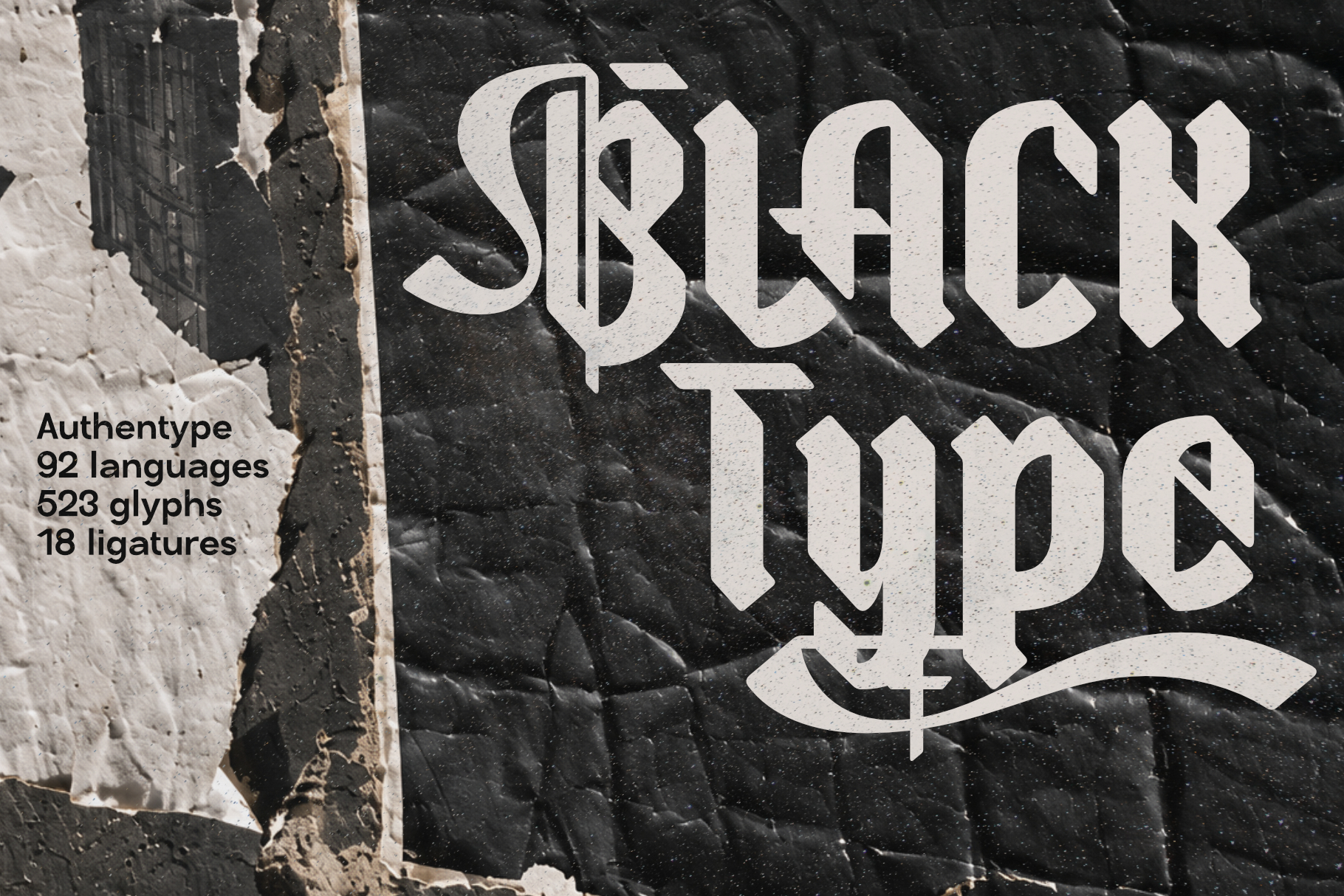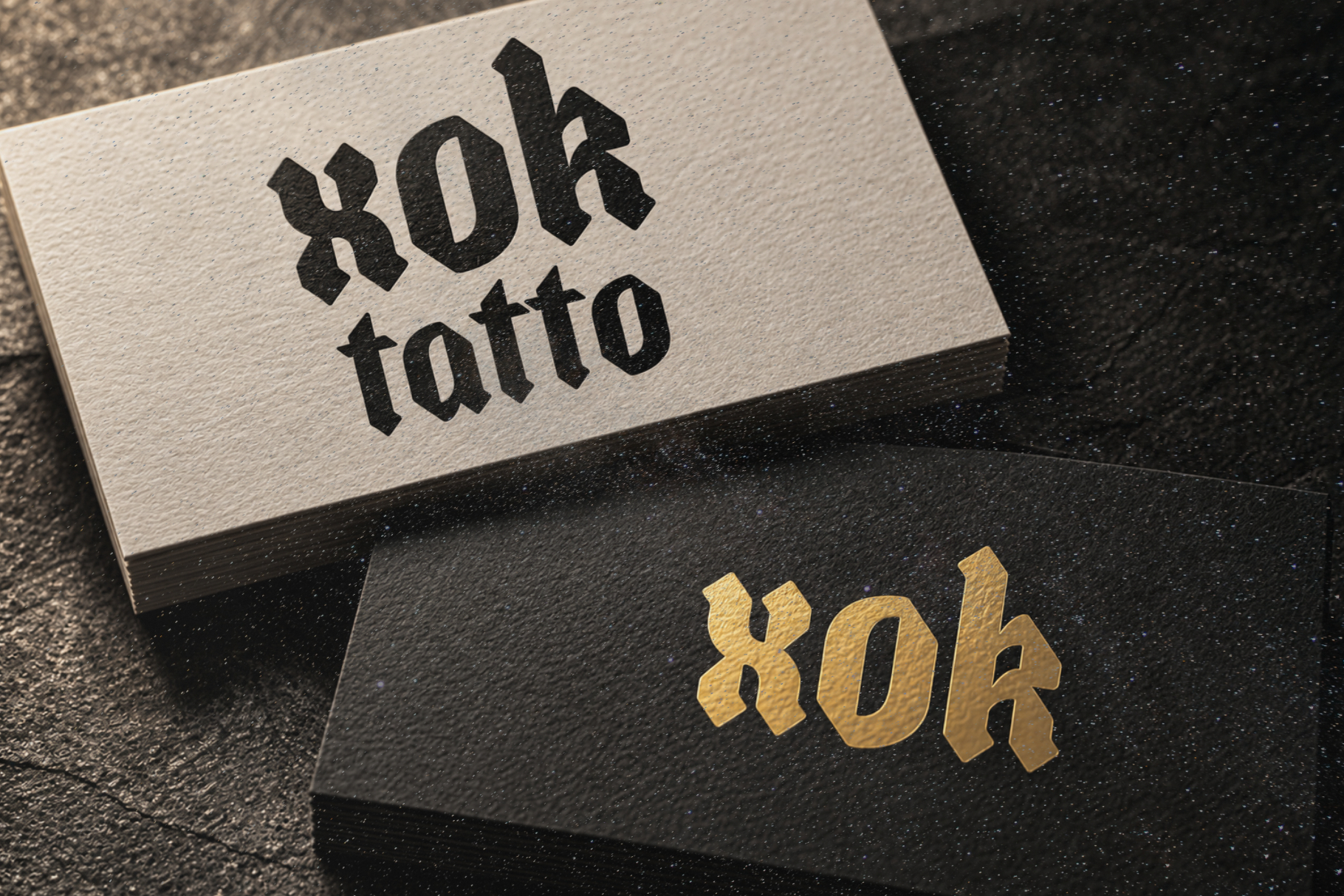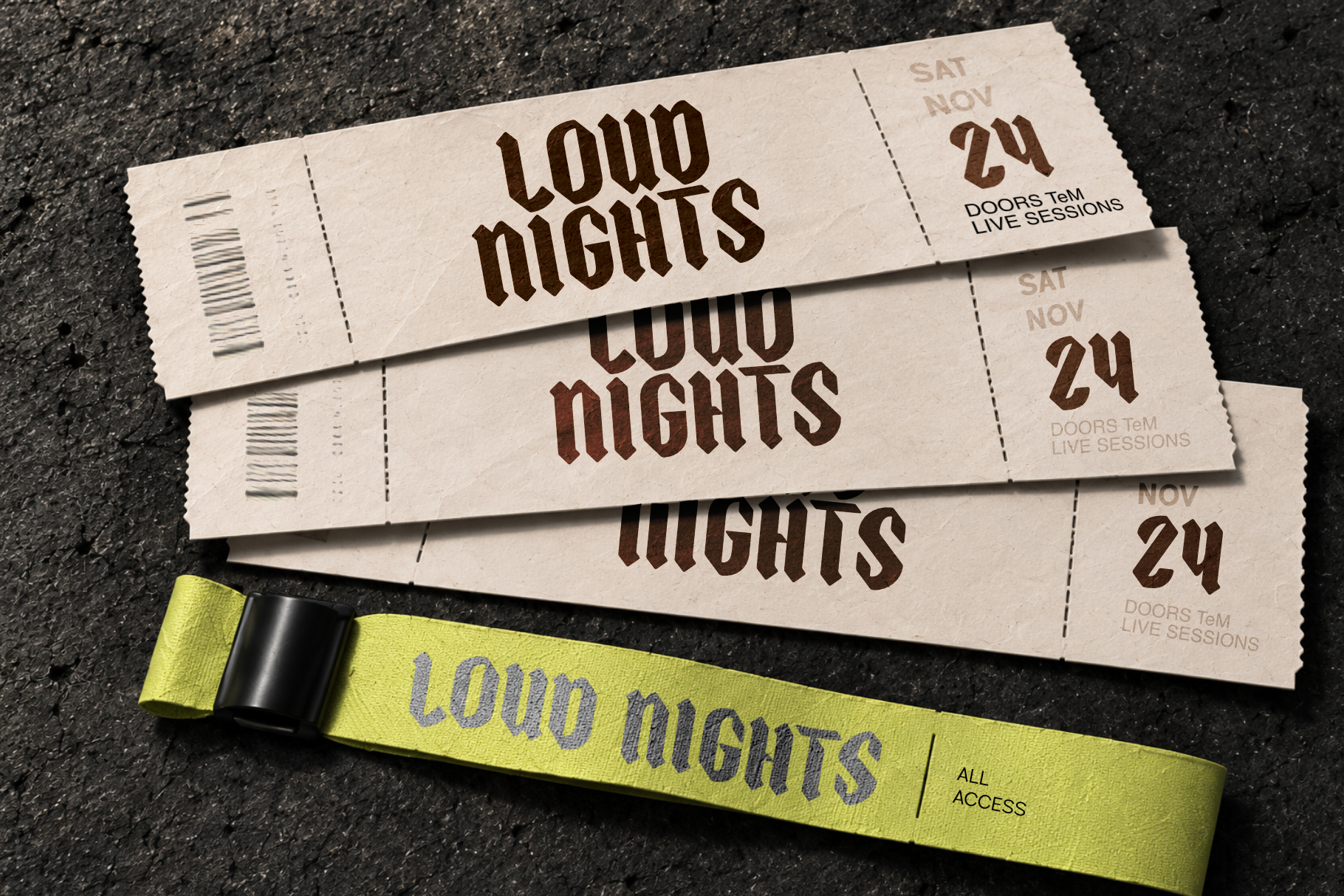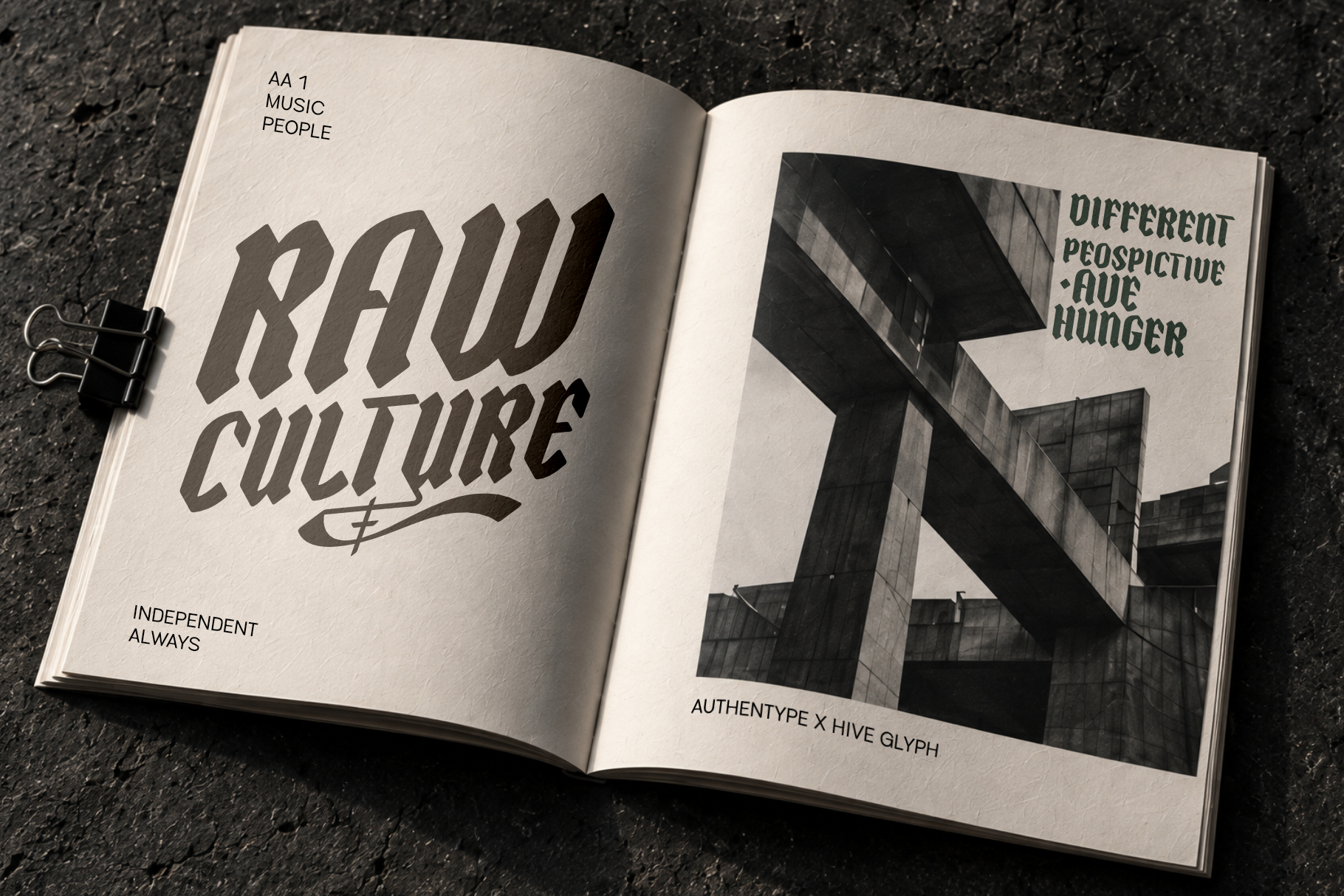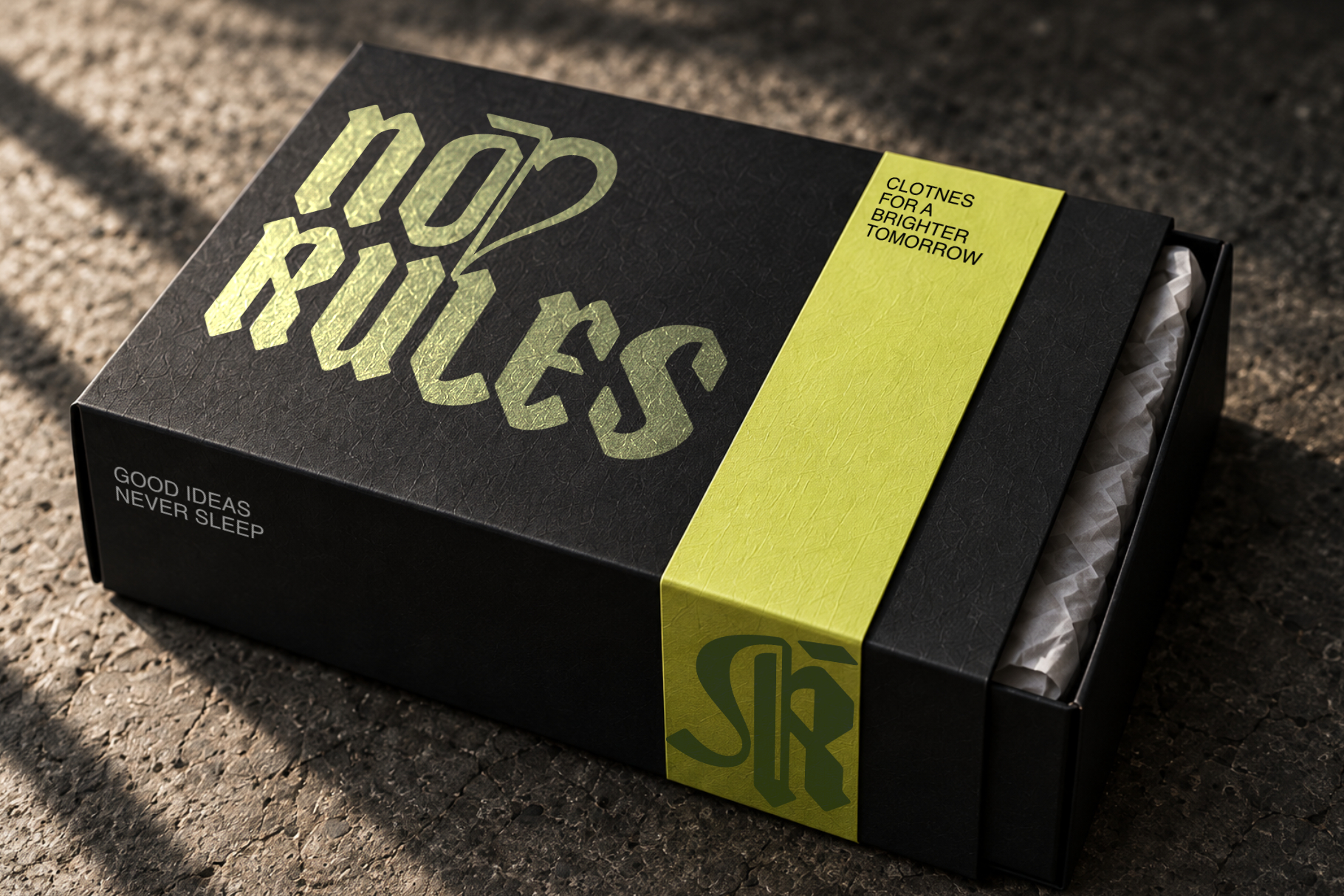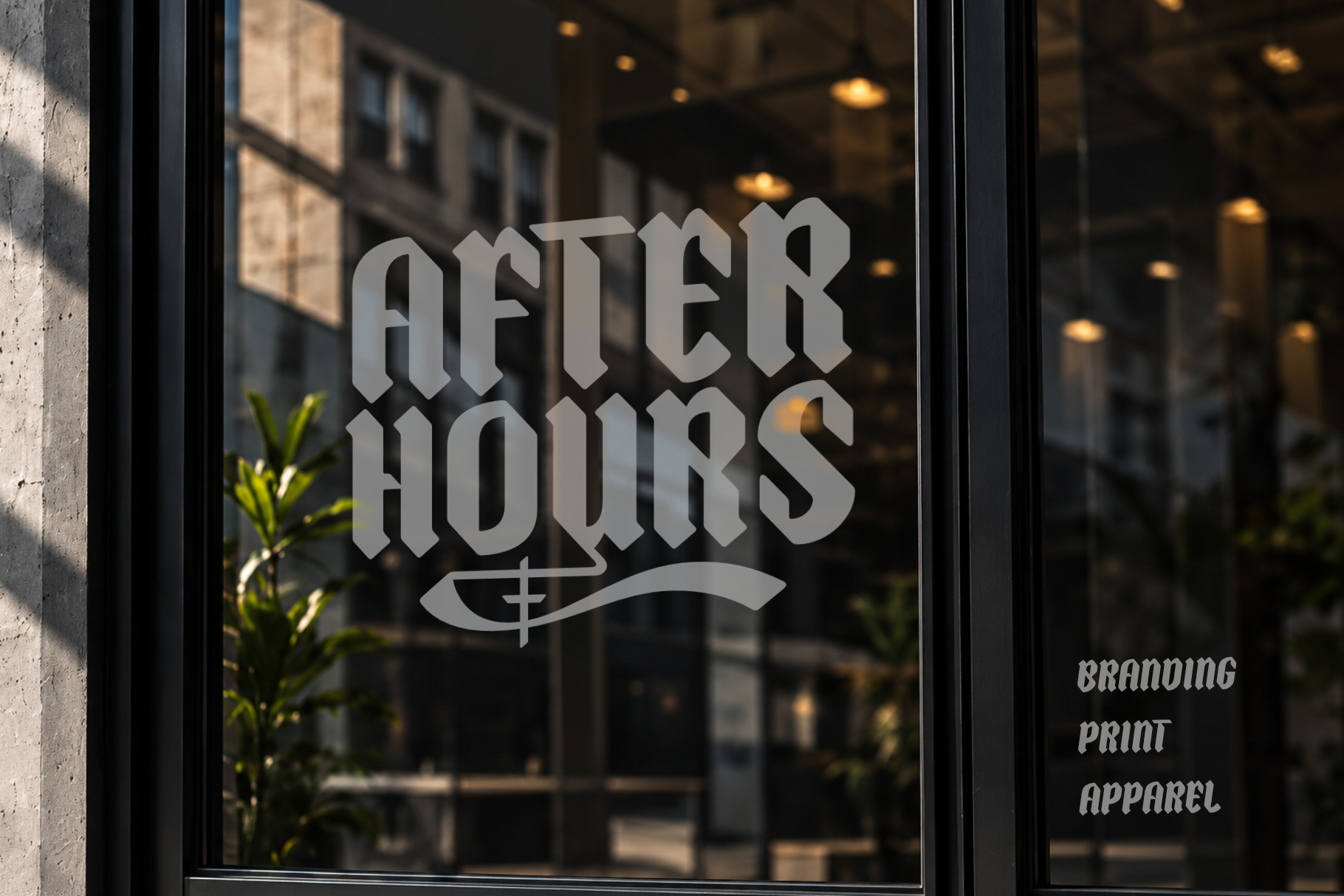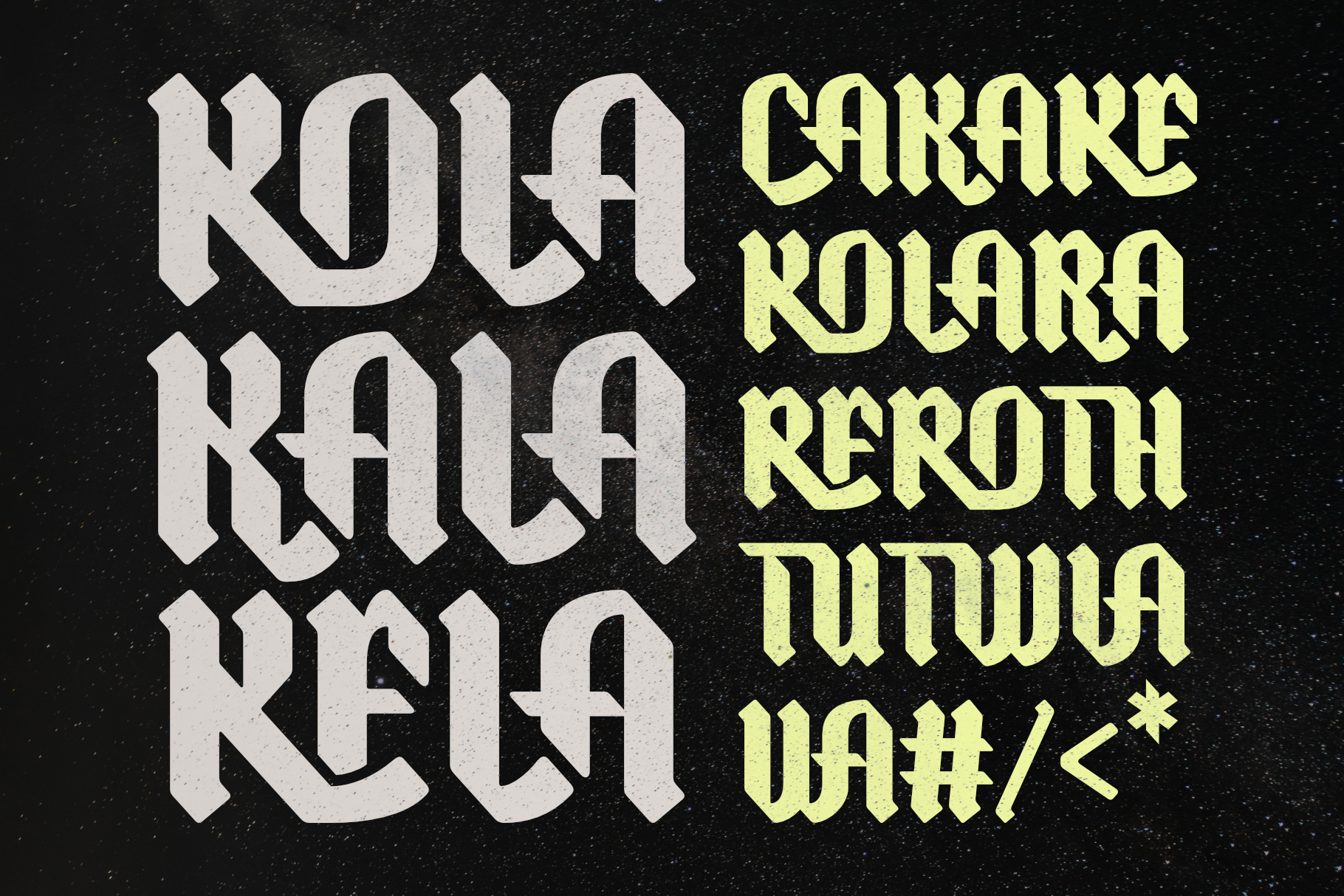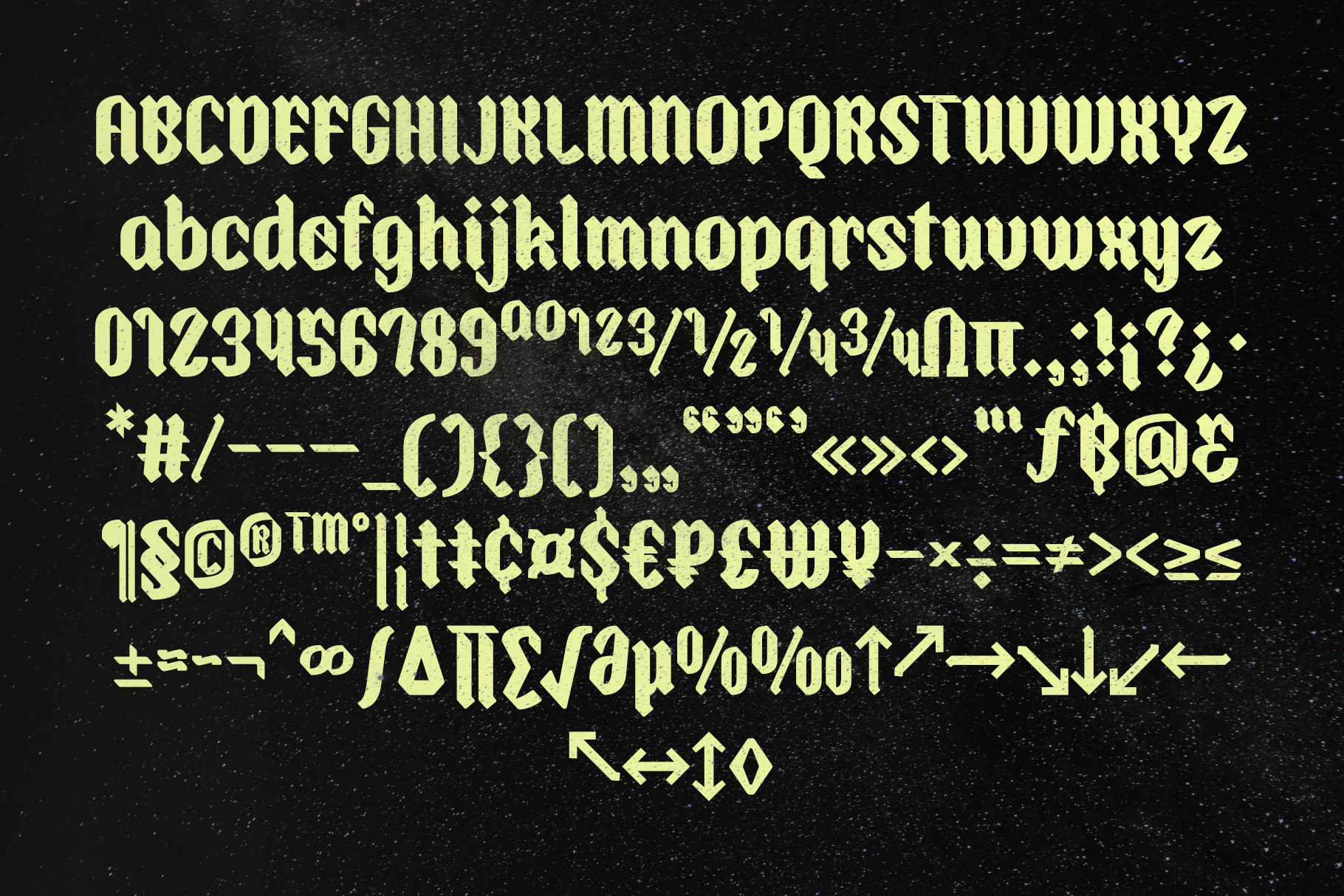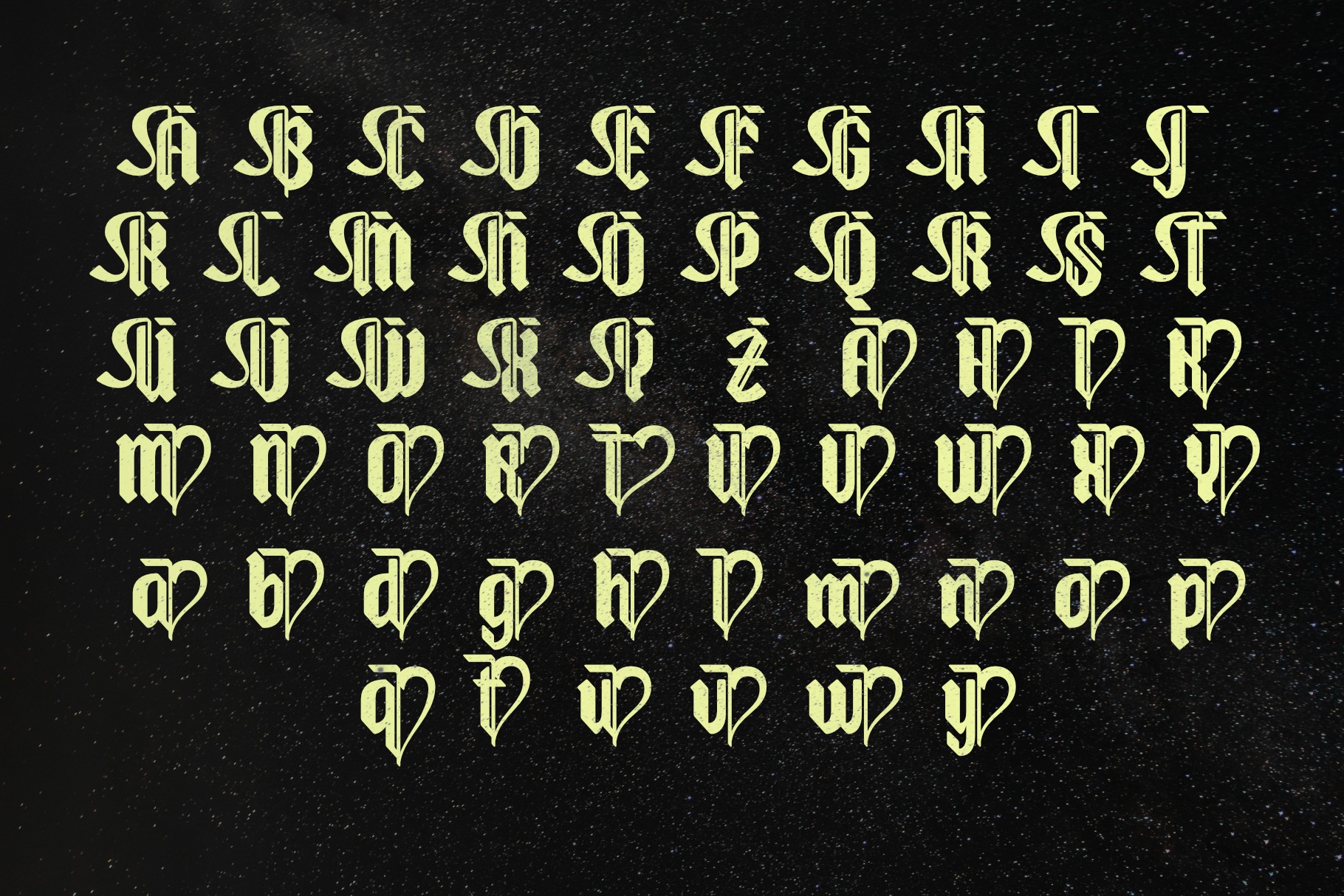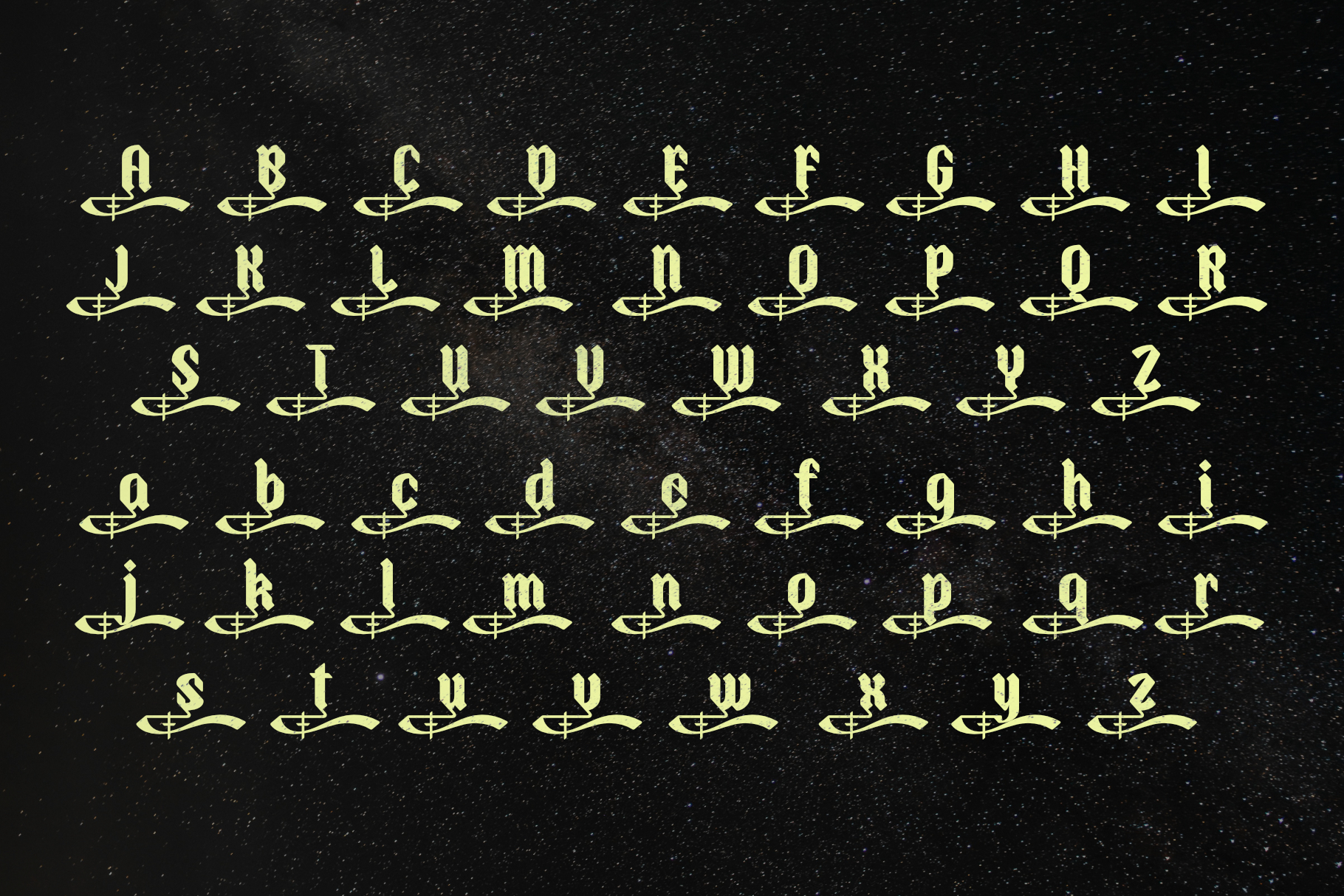
Black Type — Decorative Blackletter Font
BlackType
Black Type decorative blackletter font heavy strokes. sharp cuts. a flourish of rebellion.
Some words need to take up space. Black Type gives them the weight to do it, with dense strokes, pointed terminals, and tight, angular curves that hold their own across a poster, record sleeve, or T-shirt.
Its character comes from the balance between structure and ornament. The core letters have a firm, compact presence, while decorative alternates introduce looping details and long, sweeping swashes. Keep a word straightforward and bold, or use an embellished initial or ending to give the composition a more personal signature.
Black Type feels at home in streetwear identities, tattoo studio branding, independent music releases, and packaging with a darker edge. Its uppercase letters create strong, rhythmic headlines; the lowercase brings a different pace to names and short phrases without losing the font’s distinctive weight.
The character set includes 523 glyphs and 18 ligatures, with support for 92 languages. Uppercase and lowercase letters sit alongside numerals, punctuation, accented characters, and a broad selection of symbols, giving you room to build more than a single headline.
Use Black Type generously at display sizes, where its cuts, counters, and flourishes have room to show. Pair it with a restrained text face for supporting information, and let the main word carry the design.
Key Features
- Bold blackletter letterforms with angular details.
- Decorative alternates and sweeping swash forms.
- 523 glyphs.
- 18 ligatures.
- Multilingual support for 92 languages.
- Uppercase and lowercase letters.
- Numerals, punctuation, and accented characters.
- Currency signs, mathematical symbols, and arrows.
Ideal For
Streetwear graphics, music artwork, tattoo studio identities, posters, book covers, beverage labels, packaging, and distinctive wordmarks.